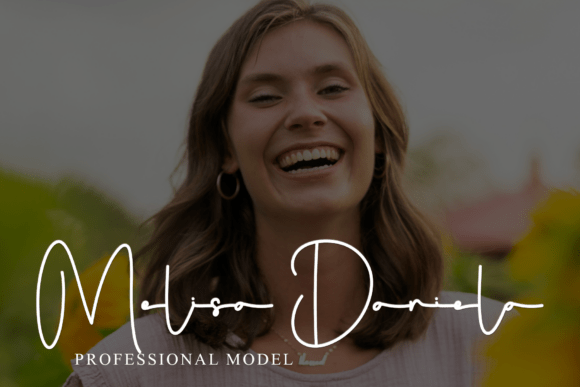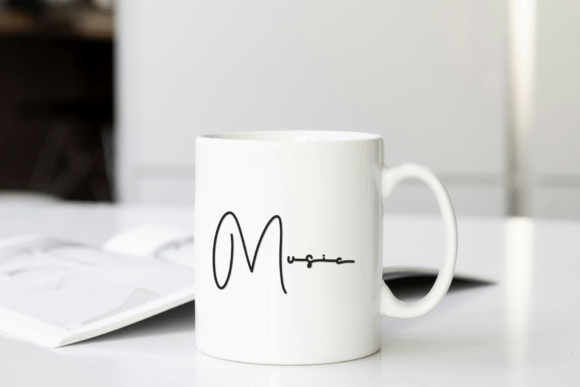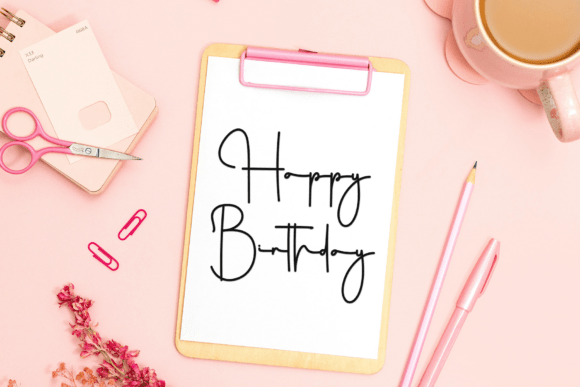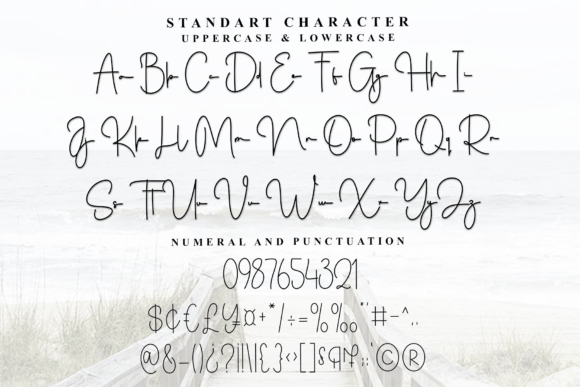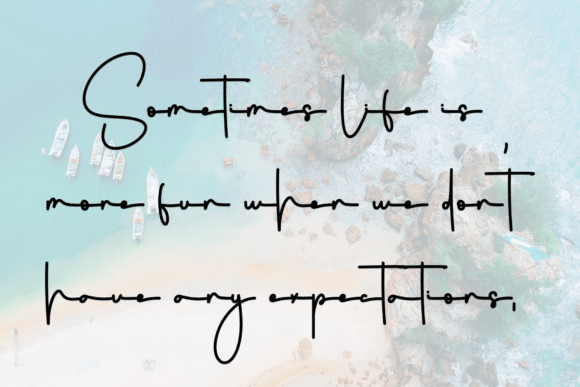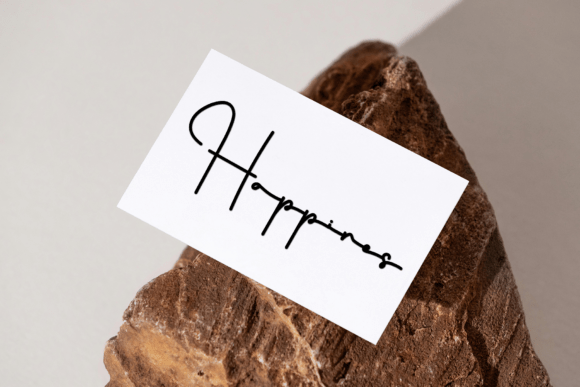
Discover the Elegance of Backsong Font: Elevate Your Designs with a Timeless Touch
In the world of typography, few fonts manage to capture the essence of elegance and timelessness as effectively as the Backsong Font. This flowing handwritten font has been making waves among designers and crafters alike, and for good reason. With its incredibly distinct style and elegant touch, Backsong is the perfect addition to any project that demands a bit of sophistication and charm.
The Unique Charm of Backsong Font
Backsong Font is not just another addition to the vast sea of typefaces available today. It stands out with its unique, flowing script that exudes an air of elegance and refinement. Each letter is crafted with precision, ensuring that the font flows smoothly, making it a joy to read and a delight to use in various design projects. Whether you’re working on a branding project, a wedding invitation, or a personal craft, Backsong brings a level of sophistication that’s hard to match.
Why Choose Backsong Font?
So, what makes Backsong Font a preferred choice for designers and crafters? Here are a few reasons:
- Elegant Touch: Backsong adds an elegant touch to any project. Its flowing lines and beautiful curves make it perfect for designs that require a bit of luxury and sophistication.
- Distinct Style: In a world where generic fonts are a dime a dozen, Backsong stands out with its incredibly distinct style. It’s a font that can make your designs instantly recognizable.
- Timeless Appeal: Trends come and go, but Backsong’s classic appeal ensures that your designs will remain relevant for years to come. It’s a font that transcends fleeting trends, offering a timeless elegance.
- Versatility: Whether you’re working on digital content, print materials, or handmade crafts, Backsong is versatile enough to fit in seamlessly. Its adaptability makes it a valuable addition to any designer’s toolkit.
Using Backsong Font in Your Projects
The versatility of Backsong Font means it can be used in a wide range of projects. Here are a few ideas to get you started:
- Branding and Logos: Add a touch of elegance to your brand’s identity with Backsong. It’s perfect for businesses that want to convey a sense of luxury and sophistication.
- Wedding and Event Invitations: Make your invitations stand out with Backsong. Its elegant and flowing script is sure to set the tone for a memorable event.
- Digital Content: From blog headers to social media graphics, Backsong can add a level of sophistication to your digital content that’s hard to achieve with more generic fonts.
- Crafts and DIY Projects: If you’re into crafting or DIY projects, Backsong can add a professional touch to your work. Use it for journaling, card making, or any project that could benefit from a bit of elegance.
Tips for Maximizing the Impact of Backsong Font
To get the most out of Backsong Font, consider the following tips:
- Pair it Wisely: Backsong works well with both simple and complex designs. However, pairing it with a clean, sans-serif font can create a beautiful contrast that highlights its elegance.
- Play with Sizes: Don’t be afraid to experiment with different sizes. Backsong’s impact can be significantly different when used in headings versus body text.
- Consider Color: The font’s beauty can be further enhanced by choosing the right color. Soft pastels, rich jewel tones, or classic black and white can all bring out the best in Backsong.
Backsong Font is more than just a typeface; it’s a design statement. Its elegant touch, distinct style, and timeless appeal make it a valuable asset for any designer or crafter looking to elevate their projects. Whether you’re aiming for sophistication, elegance, or simply want to create something that stands out, Backsong is a font that can help you achieve your design goals. So, fall in love with its charm and let it inspire you to create spectacular designs that leave a lasting impression.